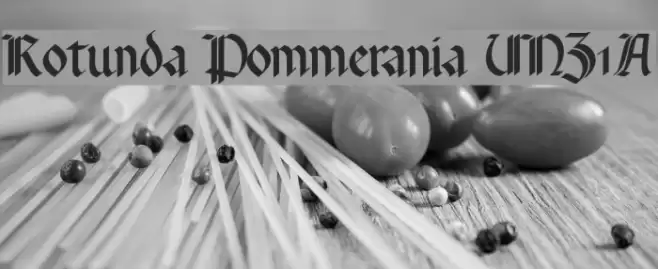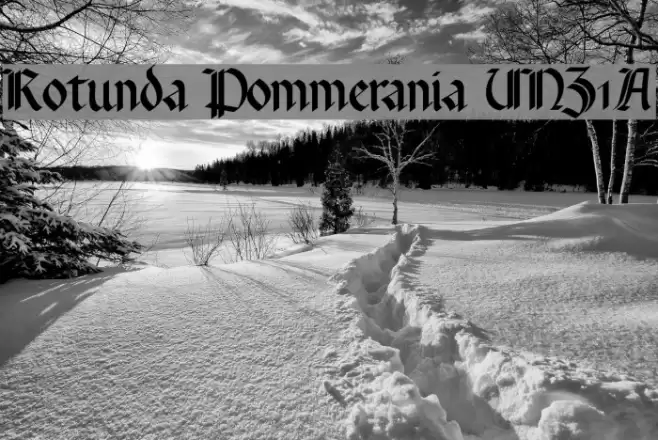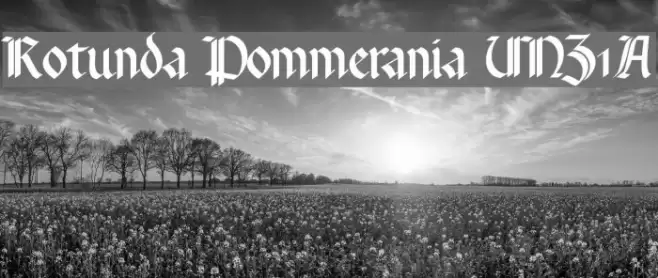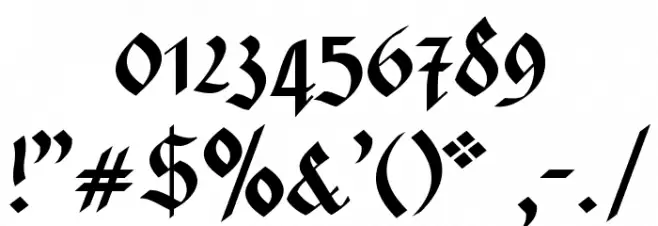
Rotunda Pommerania UNZ1A Font
Rotunda Pommerania UNZ1A Description
This font exhibits a traditional blackletter style, characterized by its ornate and angular letterforms. The uppercase letters are bold and intricate, with sharp edges and a strong presence. The lowercase letters maintain the same angularity but are slightly more fluid, offering a balance between rigidity and elegance. The numerals are consistent with the overall style, featuring sharp angles and a bold appearance. Special characters are designed to complement the letterforms, maintaining the same decorative and historical aesthetic. This font is reminiscent of medieval script, often associated with historical documents and traditional European texts.
A bold, ornate blackletter font with sharp, angular letterforms from Uncategorized fonts.
- Proposed Projects: Ideal for projects requiring a historical or medieval theme, such as book covers, posters, or branding for traditional products.
- Overall Style: Vintage
- Use Case: Headlines, Logos, Decorative text